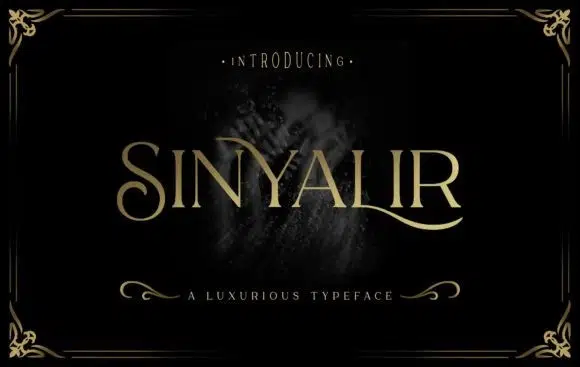
Sinyalir Font
Sinyalir Font is perfect for modern tech branding, communication company logos, telecommunications marketing, digital signal processing designs, network service branding, wireless technology packaging, broadcasting company identities, connectivity-focused campaigns, tech startup materials, signal transmission graphics, radio station branding, and any design project requiring a contemporary communication-themed aesthetic.
What makes Sinyalir Font exciting is its dynamic character that embodies the essence of modern communication and digital connectivity. The font's distinctive letterforms capture the flow of information and signals, making it ideal for brands operating in telecommunications, broadcasting, and technology sectors. Its contemporary styling communicates innovation and reliability, helping designers create compelling content that resonates with audiences navigating our interconnected digital world and seeking dependable communication solutions.
The Sinyalir Font family typically includes uppercase and lowercase characters, numerals, punctuation marks, and signal-inspired design elements that enhance its technological communication aesthetic.